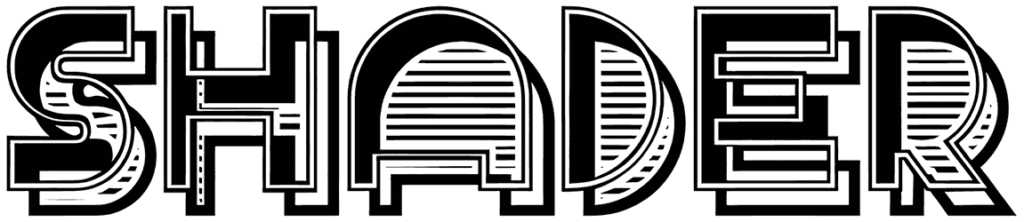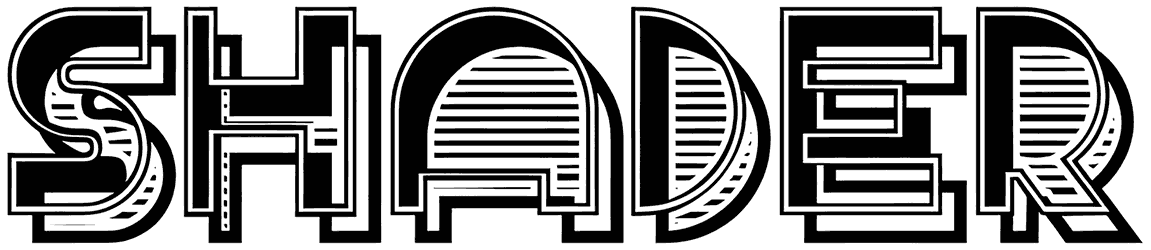
Shader Font
Strange decorations of Shader letters will make you unnecessary of any other decorative elements and can turn your mental ideas into reality in a short time. This shadow font needs to be combined with additional options to compensate for lowercase letters and numbers, which you don’t need to leave RB to find.
The combination of horizontal lines, round letters, and 3D design makes the designs look illegible. Still, they are guaranteed to keep viewers focused on posters and advertisements.